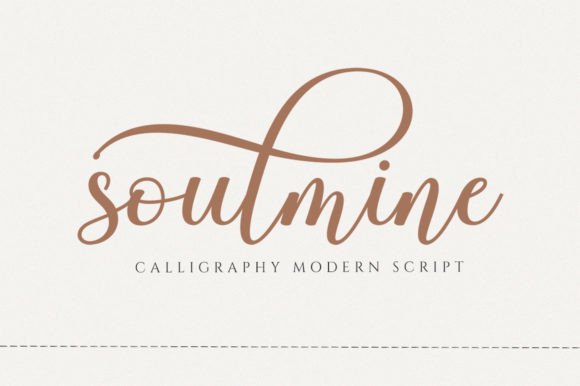
Dive into the world of unparalleled elegance with Soulmine Script, a captivating calligraphy font that breathes life into your digital creations. Each letter, meticulously handcrafted, dances across the screen, leaving a trail of sophistication and charm.
Unleash your creativity and let Soulmine Script weave its magic through your projects. From enchanting invitations that whisper romance to meticulously designed greeting cards that convey heartfelt emotions, Soulmine Script is your trusted companion. Its versatility shines in posters that command attention and business cards that leave a lasting impression.
Quotes, blog headers, and branding take on a whole new dimension with Soulmine Script. Its graceful strokes add a touch of class that elevates your content. Fashion and clothing designs come alive with Soulmine Script, exuding an aura of exclusivity and timeless style.
Personal letters and stationery transform into cherished keepsakes, etched with the elegance of Soulmine Script. Its timeless beauty transcends trends, making it the perfect choice for any occasion or project. Embrace the artistry of Soulmine Script and watch as your creative visions blossom into masterpieces.
Experience the allure of Soulmine Script and elevate your designs to new heights. Its modern script style effortlessly blends tradition with contemporary flair, creating a stunning visual impact that captivates audiences.
Unlock the endless possibilities of Soulmine Script and embark on a journey of creative exploration. Its versatility knows no bounds, allowing you to effortlessly craft designs that resonate with your unique style and vision.